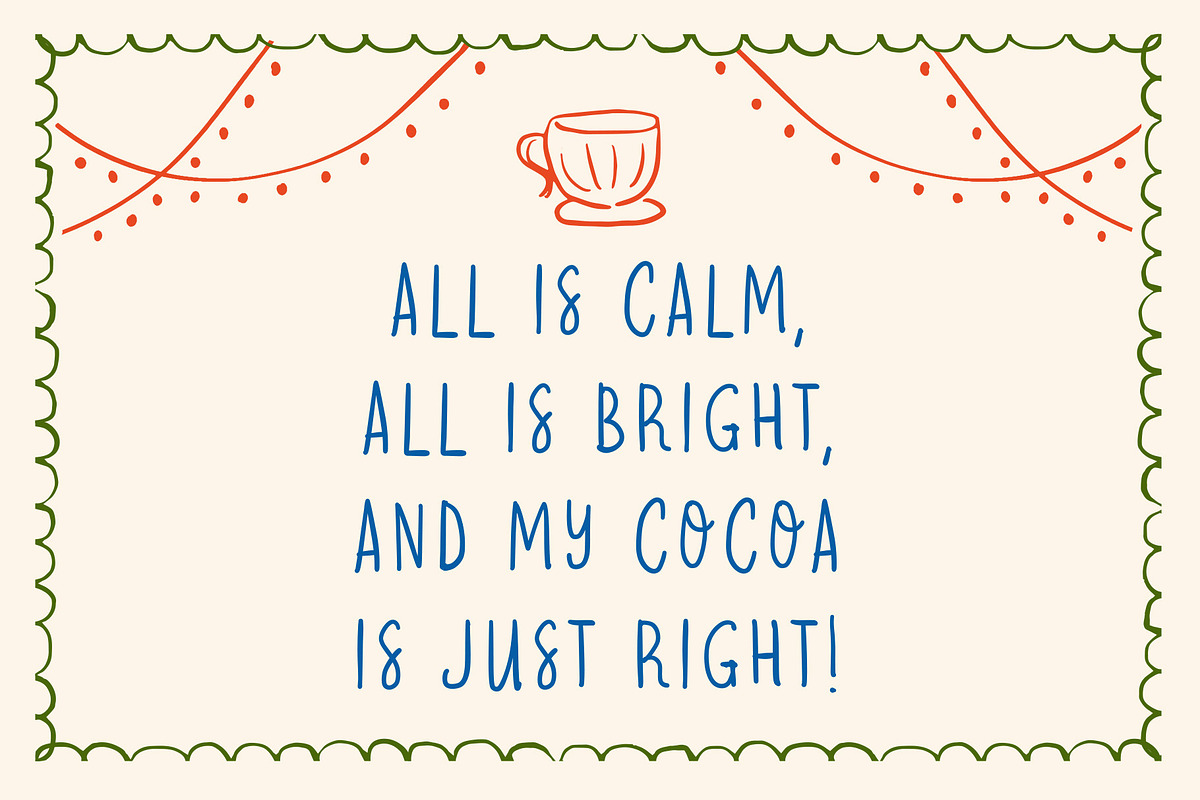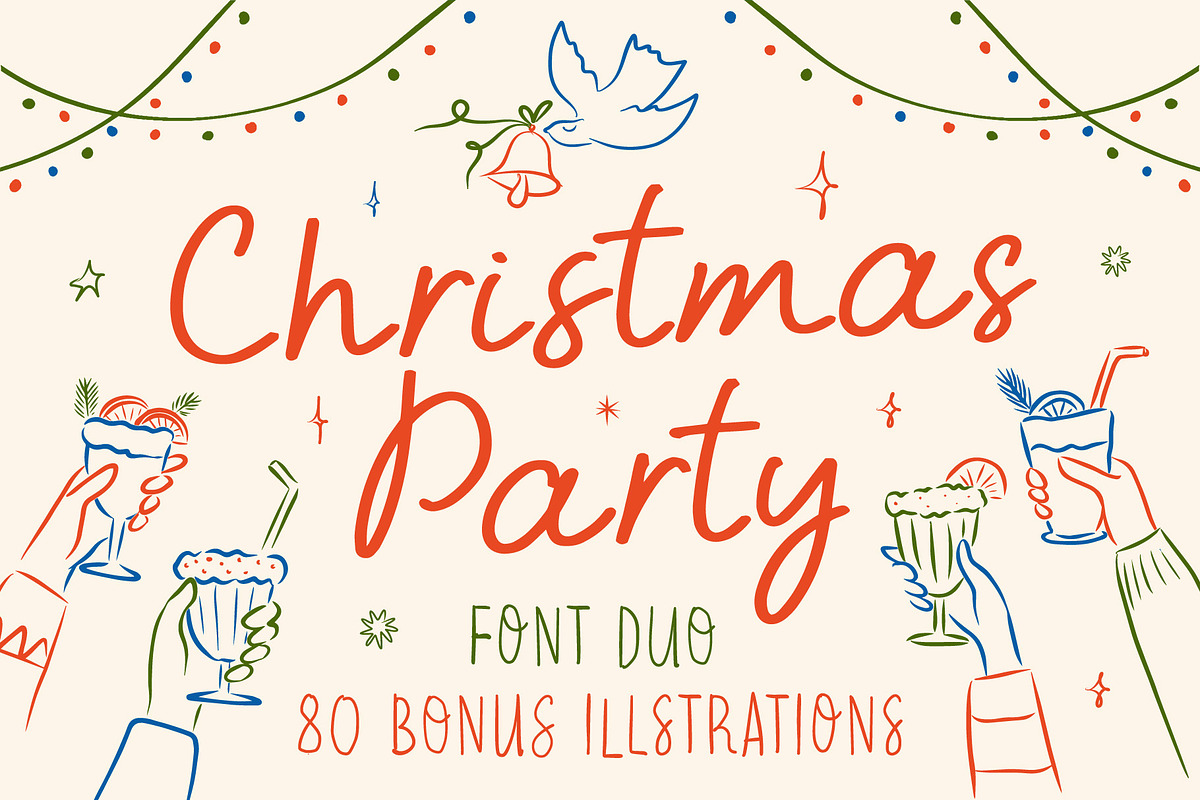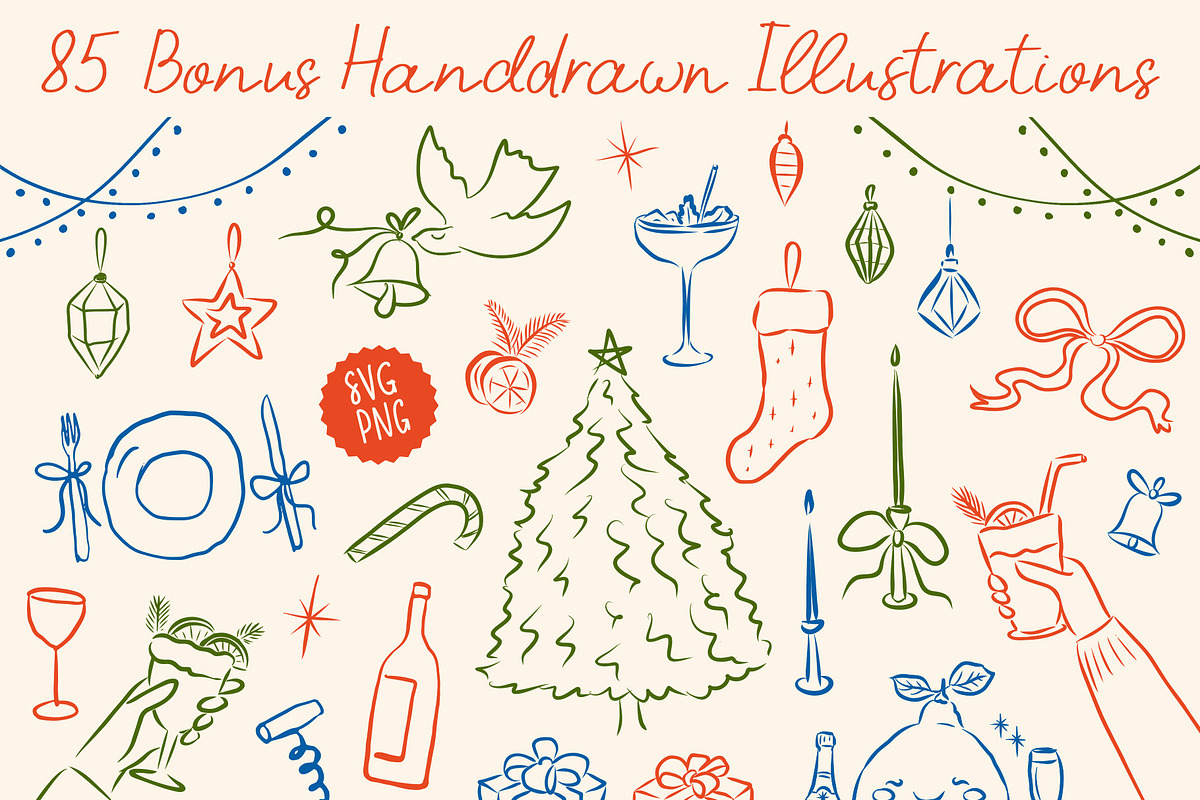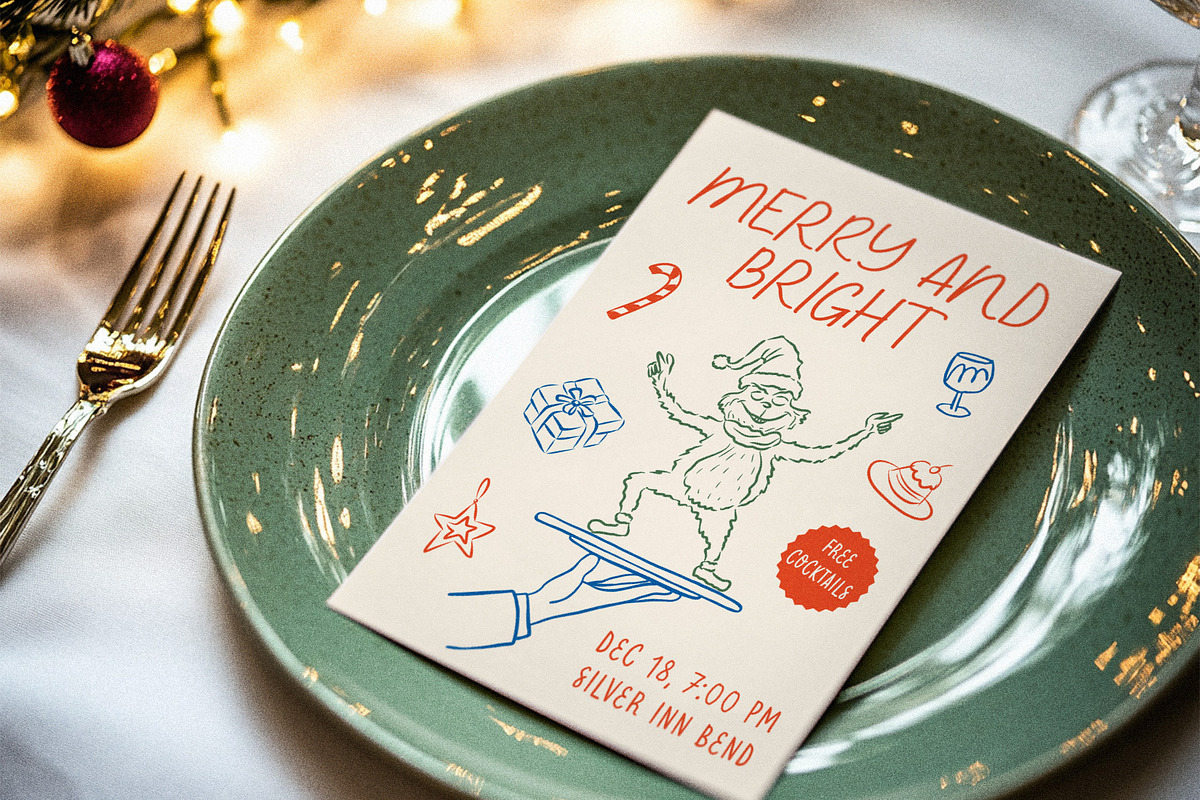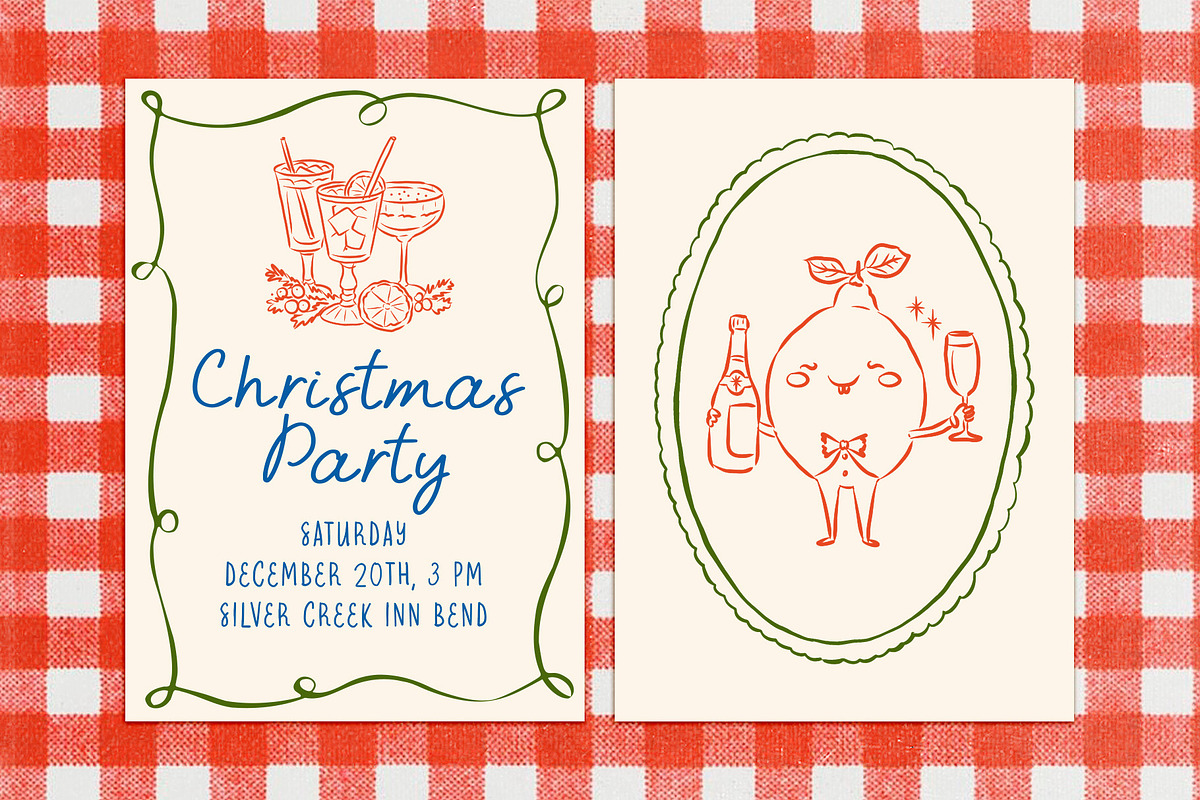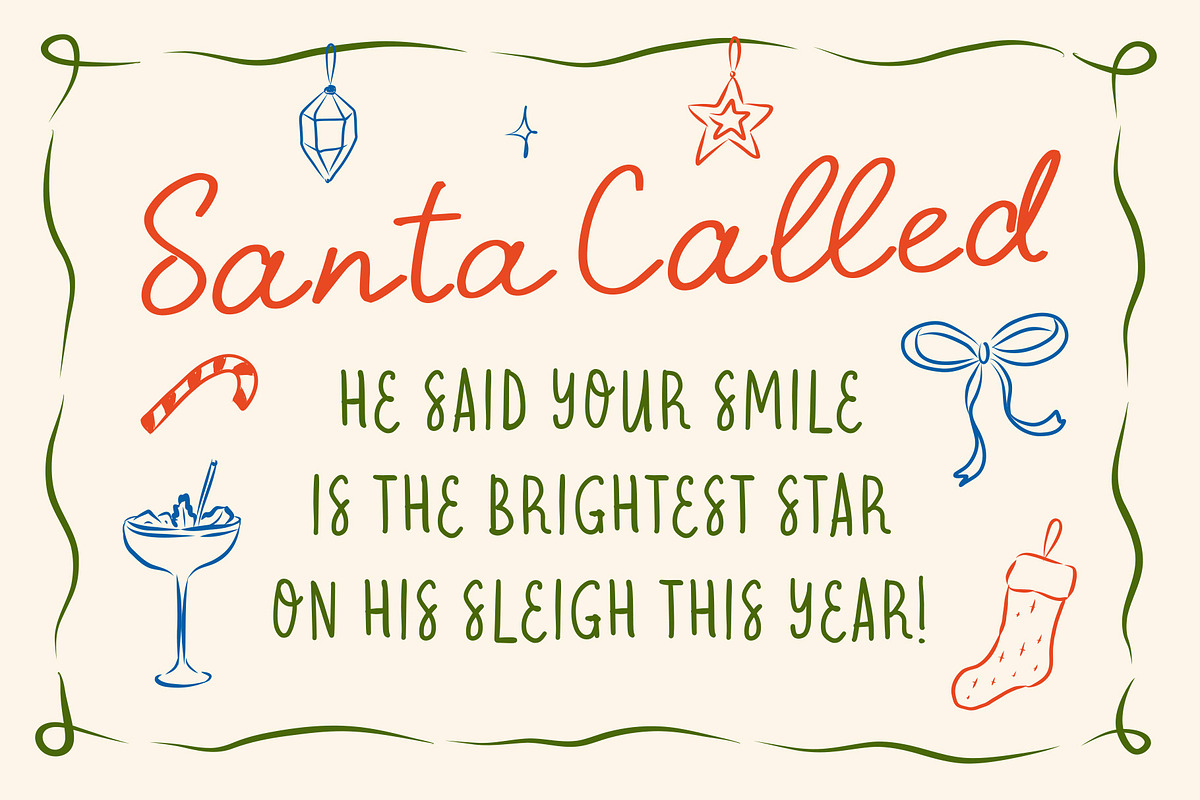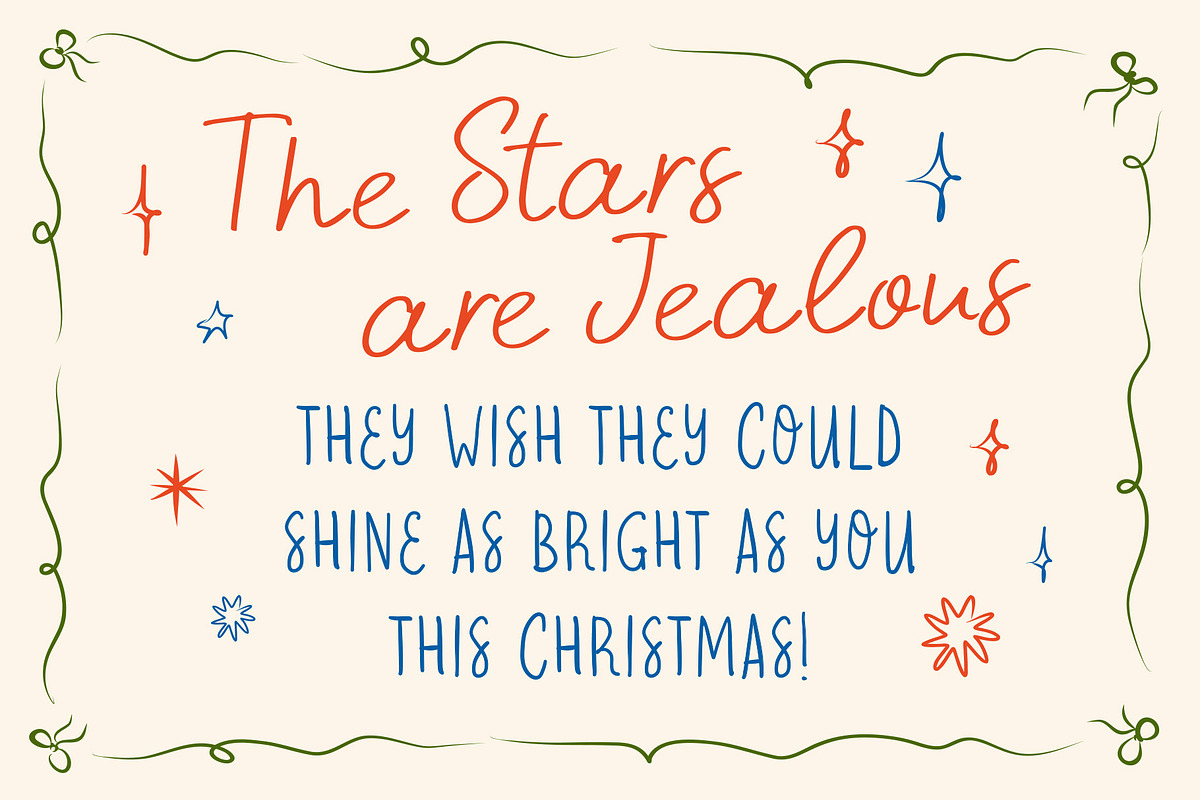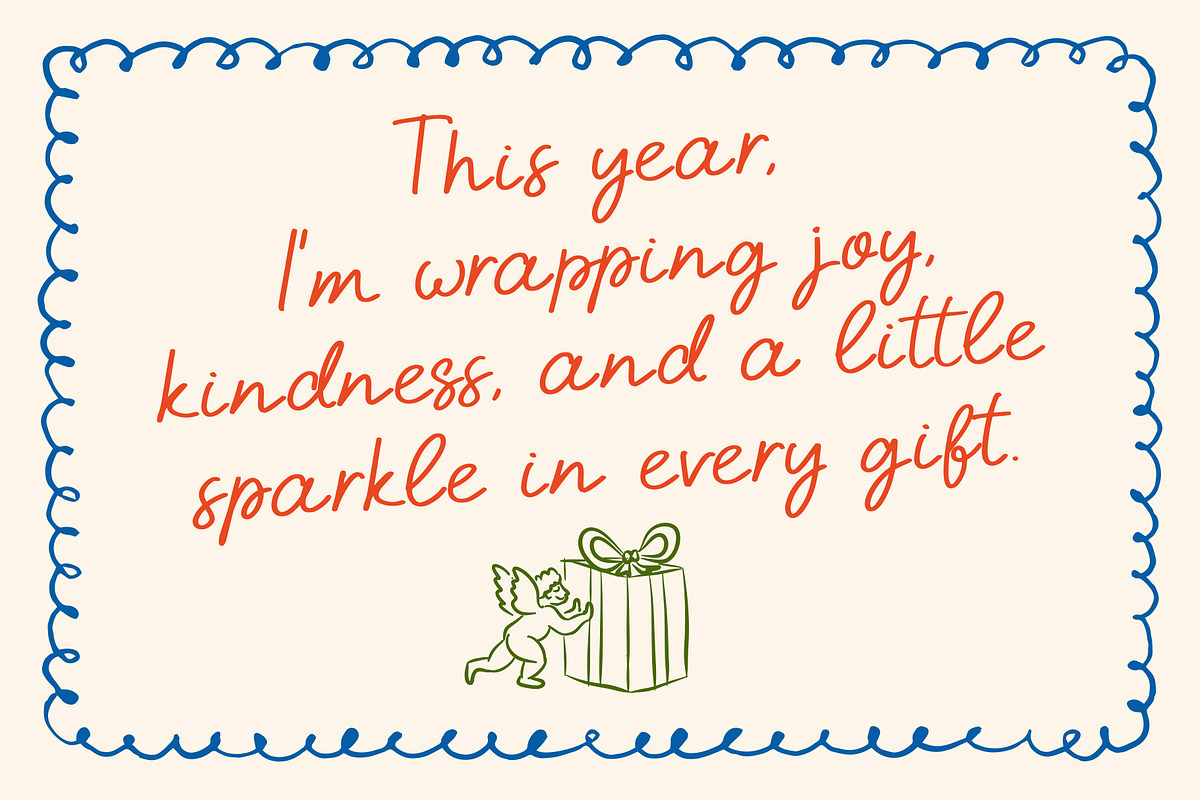
Whimsical Font Duo, Christmas Icons
Get into the festive spirit with the Christmas Party font duo! :) This fun combo of hand-drawn fonts and playful Christmas illustrations is made for creative souls who love to add a personal touch to their projects. Use it for invitations, dinner menus, gift tags, posters, or anything else that needs a cozy, holiday vibe. We created this with a love for all things Christmas, so it’s more than just a font, it’s a little piece of holiday cheer for your creative projects.